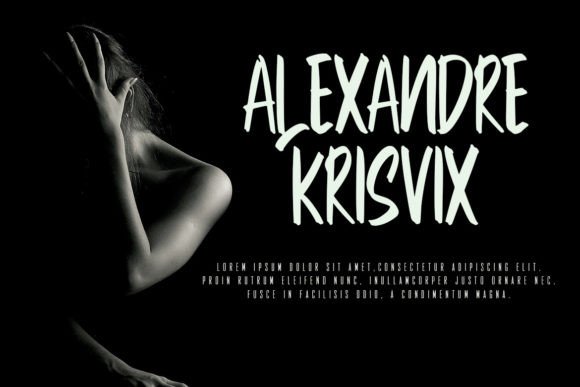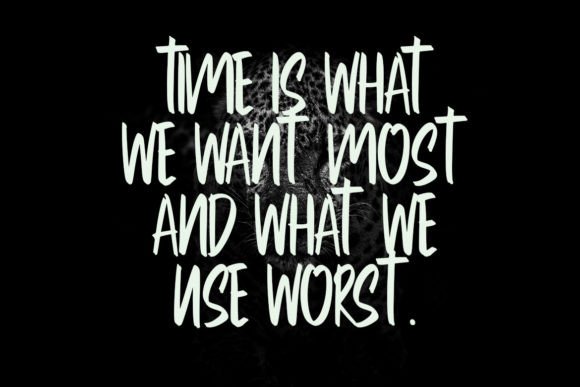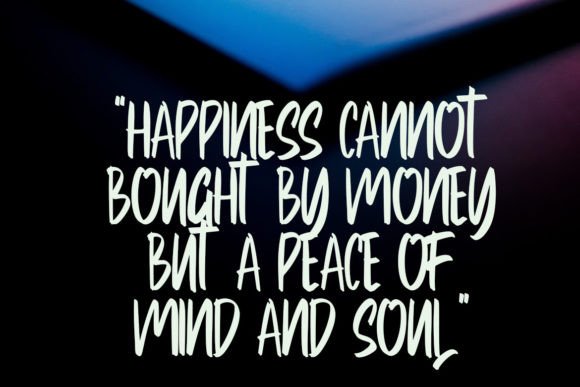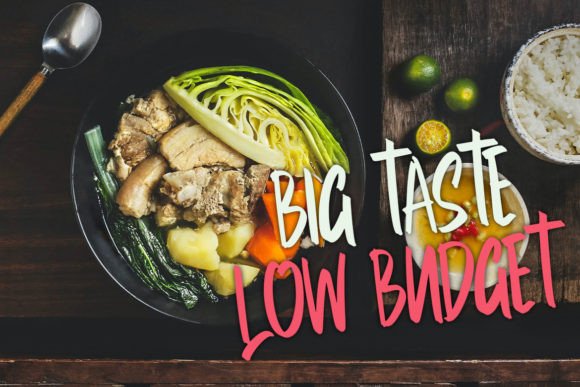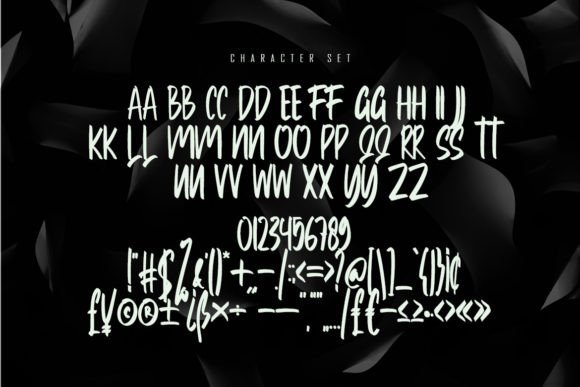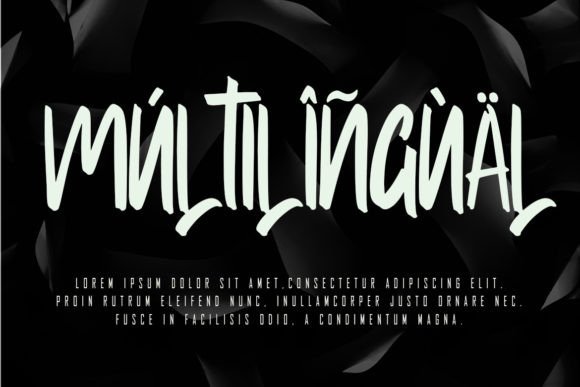
Frogs Font: Elevate Your Designs with a Stylish Handwritten Brush Font
In the world of typography, fonts play a crucial role in making or breaking a design. A well-chosen font can instantly elevate your project, adding a touch of personality and style. If you’re a designer or crafter looking for a modern handwritten brush font that exudes confidence and dynamism, look no further than Frogs Font. In this article, we’ll dive into the world of Frogs Font, exploring its features, benefits, and uses.
What is Frogs Font?
Frogs Font is a modern handwritten brush font, carefully crafted to give your headlines and logotype projects a stylish touch. This font is designed to read as strong, confident, and dynamic, making it perfect for designers and crafters who want to add a personal touch to their work. With its unique blend of elegance and playfulness, Frogs Font is sure to make your designs stand out from the crowd.
Key Features of Frogs Font
So, what makes Frogs Font so special? Here are some of its key features:
- Handwritten Brush Style: Frogs Font boasts a beautiful handwritten brush style, giving it a personal and organic feel.
- Modern and Fresh: This font is perfect for modern designs, with a fresh and contemporary look that’s sure to appeal to a wide range of audiences.
- Strong and Confident: Frogs Font reads as strong and confident, making it ideal for headlines, logotypes, and other high-impact designs.
- Dynamic and Playful: With its unique blend of elegance and playfulness, Frogs Font is perfect for designers who want to add a touch of whimsy to their work.
Benefits of Using Frogs Font
So, why should you choose Frogs Font for your next design project? Here are just a few benefits:
- Adds Character to Your Designs: Frogs Font can add tons of character to your designs, making them more engaging and memorable.
- Perfect for Headlines and Logotypes: This font is specifically designed for headlines and logotypes, making it perfect for branding and advertising projects.
- Easy to Read: Despite its playful style, Frogs Font is easy to read, even at smaller sizes.
- Versatile: This font can be used for a wide range of projects, from digital designs to print materials.
Who Can Use Frogs Font?
Frogs Font is perfect for a wide range of designers and crafters, including:
- Graphic Designers: If you’re a graphic designer looking for a modern handwritten brush font, Frogs Font is a great choice.
- Logotype and Branding Designers: This font is perfect for logotype and branding projects, adding a touch of personality and style to your designs.
- Crafters and Makers: If you’re a crafter or maker looking for a unique font for your DIY projects, Frogs Font is a great option.
Tips for Using Frogs Font
Here are a few tips for getting the most out of Frogs Font:
- Use it for Headlines and Logotypes: Frogs Font is specifically designed for headlines and logotypes, so use it to make a statement.
- Experiment with Colors: This font looks great in a wide range of colors, so don’t be afraid to experiment and find the perfect hue for your design.
- Pair it with Other Fonts: Frogs Font can be paired with other fonts to create a unique and interesting look.
In conclusion, Frogs Font is a modern handwritten brush font that’s perfect for designers and crafters looking to add a stylish touch to their work. With its strong, confident, and dynamic style, this font is sure to make your designs stand out from the crowd. Whether you’re a graphic designer, logotype and branding designer, or crafter and maker, Frogs Font is a great choice for your next project. So why not give it a try and see the difference it can make?